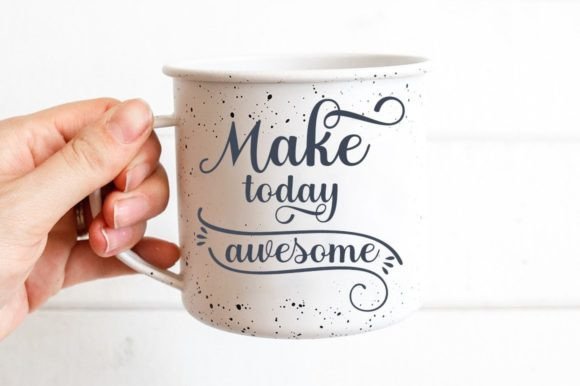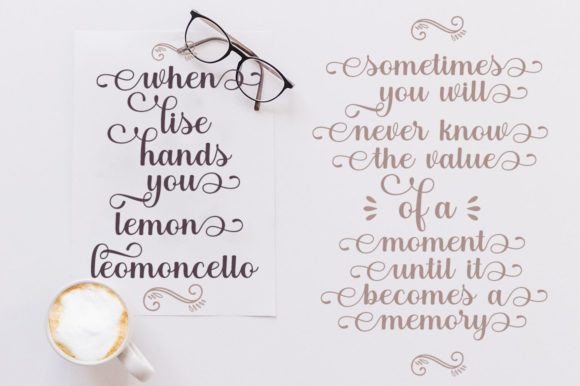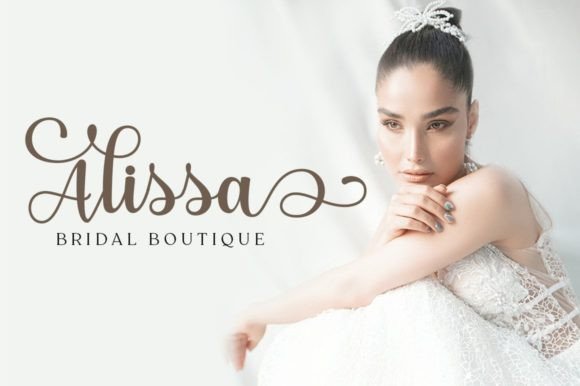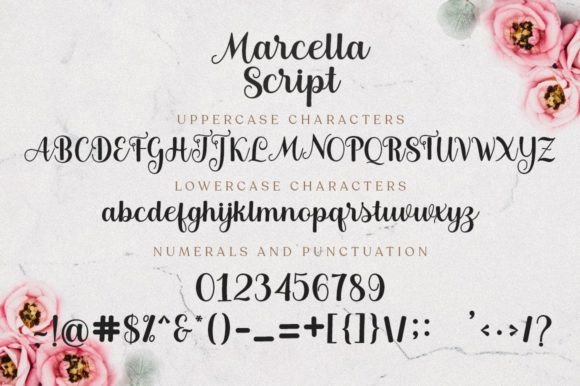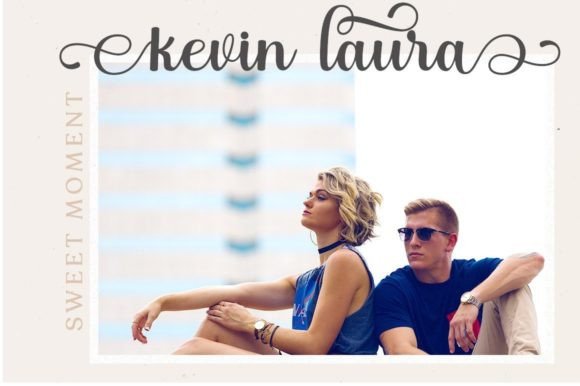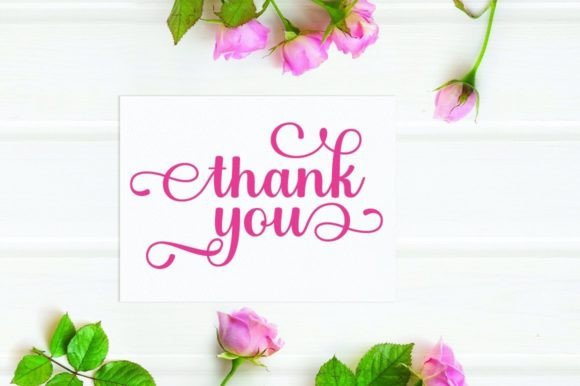
Marcella Font
About Marcella Font
Marcella exudes romance and sweetness, presenting itself as a calligraphy typeface with characters that gracefully dance along the baseline. This font is designed to infuse a luxurious spark into any design project, elevating it with a touch of elegance and charm.
The distinctive feature of Marcella lies in its PUA encoding, allowing easy access to a wealth of amazing glyphs and ligatures. This feature enhances the font’s versatility, enabling designers to effortlessly incorporate unique and expressive elements into their creations.
Imagine Marcella embellishing the headlines of wedding invitations, exuding a romantic and sophisticated aura. Picture it gracing the pages of a romantic novel, capturing the essence of love through its beautifully crafted letterforms. The font’s ability to convey a sense of luxury and style makes it suitable for a variety of design applications.
With Marcella, you have at your disposal a calligraphy font that transcends the ordinary, transforming each project into a romantic masterpiece. Whether you’re working on wedding invitations, logos, or any design endeavor that calls for a touch of romance, Marcella stands ready to add that perfect blend of luxury and sweetness to your creative works.